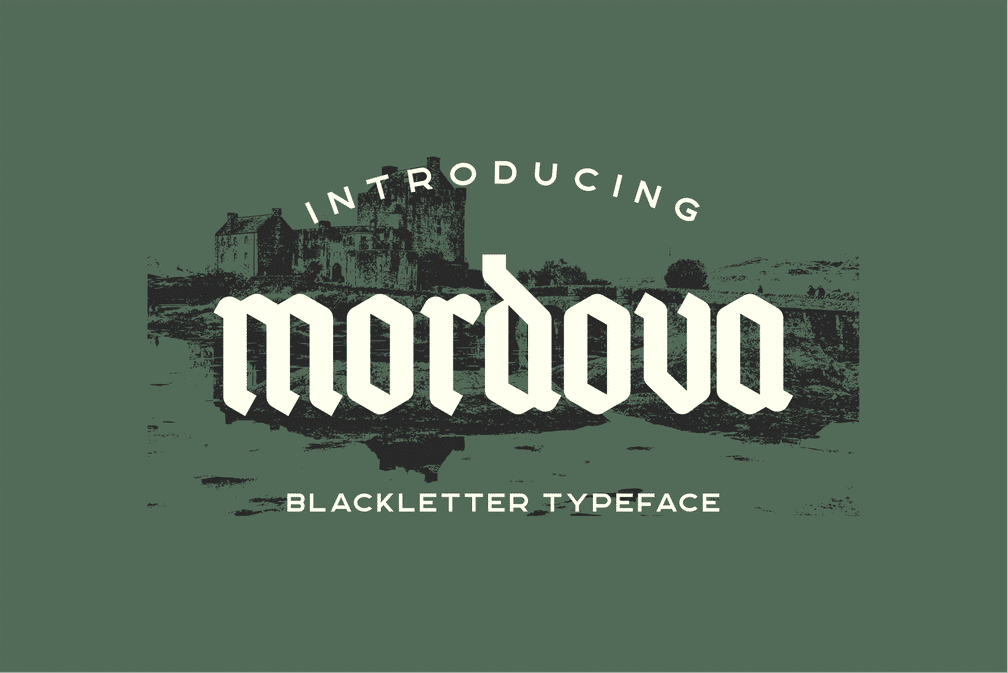
- Mordova Blackletter
Mordova blackletter typeface combining modern and classic typography style. Suitable for designs that require a dark, classic, and horror touch, can be applied as logos, posters, label designs, print on t-shirts and others.